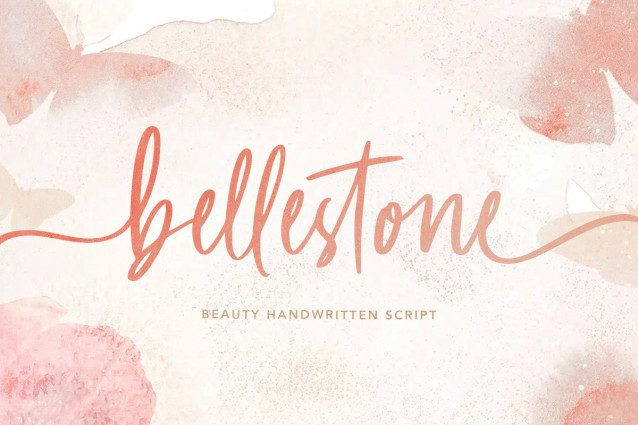
Bellestone Font
Bellestone Font is a beauty handwritten script with ligatures and swashes. With natural handwriting, this font will make your design more organic and beautiful. This font is suitable for wedding invitation, logotype, apparel, invitation, letterhead, branding, packaging, advertising, label, posters, quotes and more. Bellestone also support multilingual.